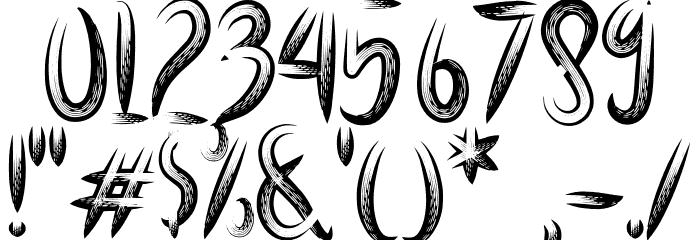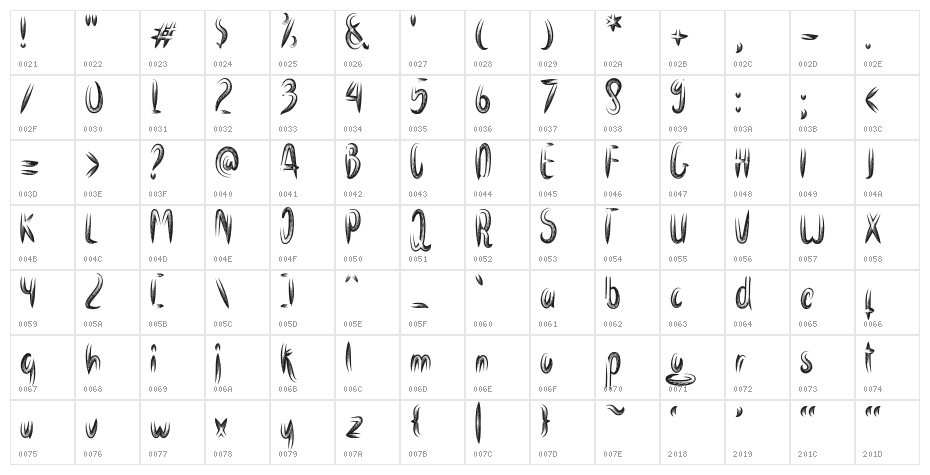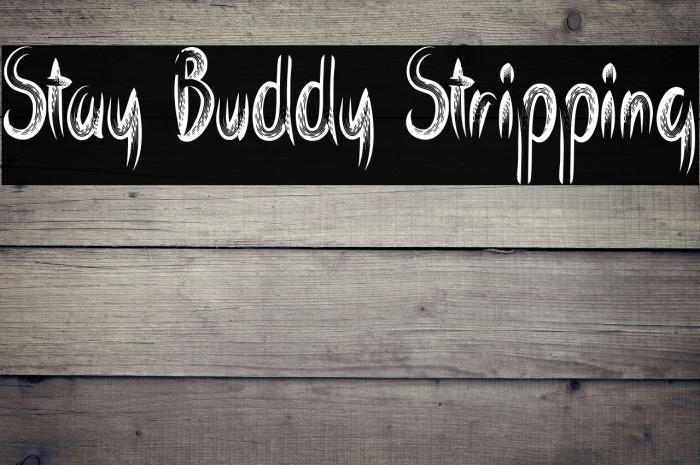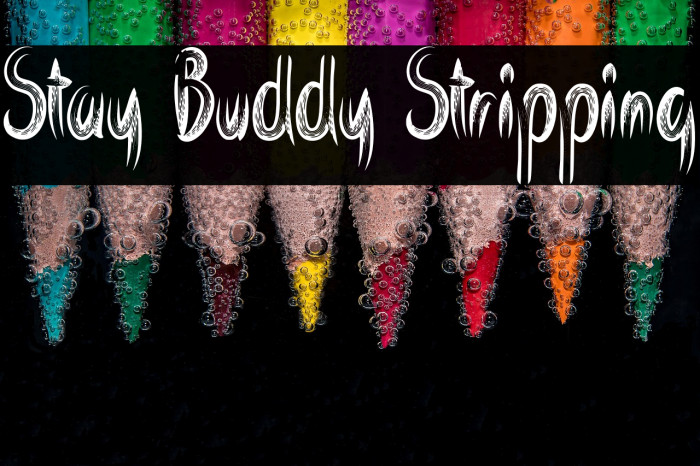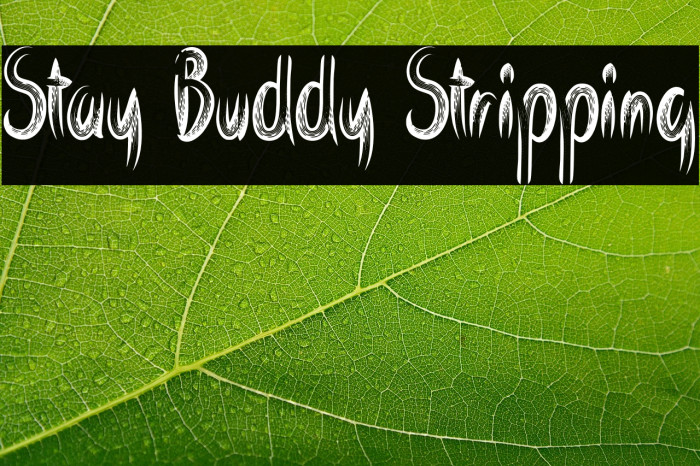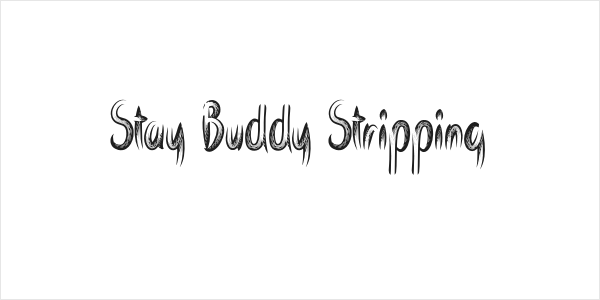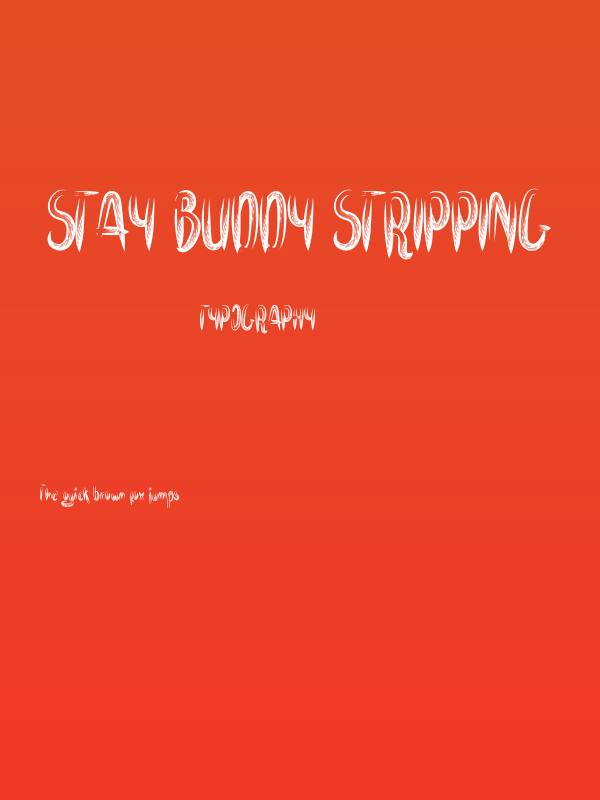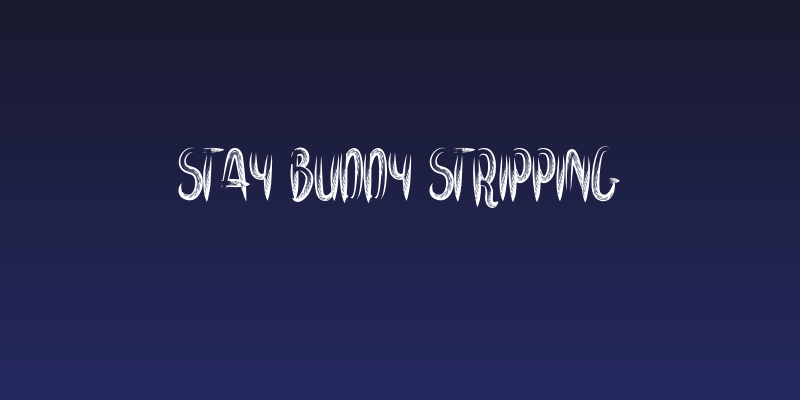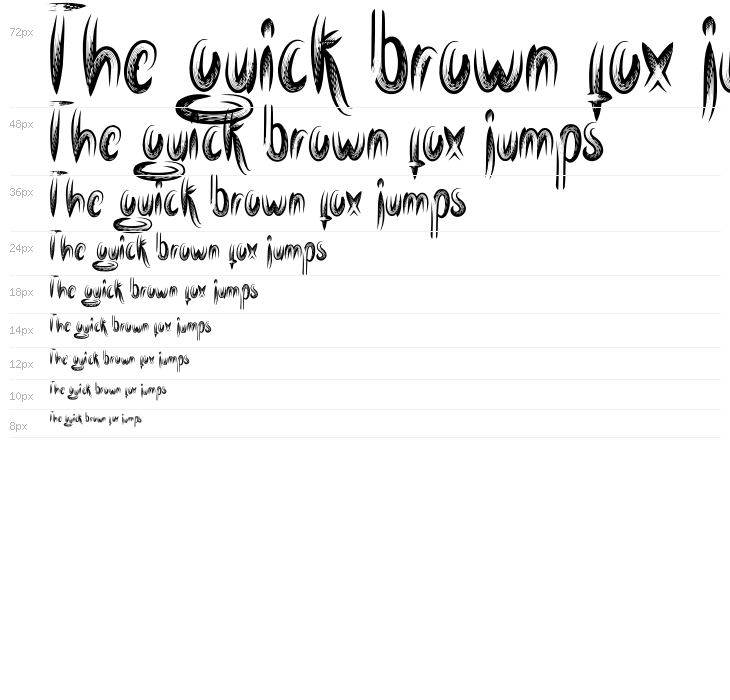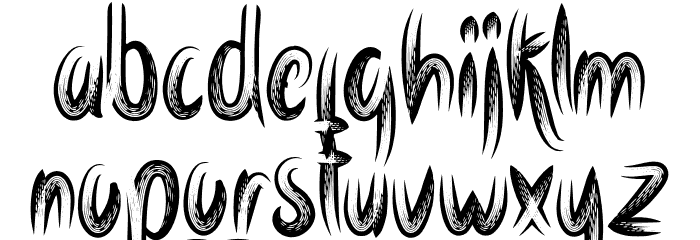
Stay Buddy Stripping Font
Stay Buddy Stripping Description
This font features a dynamic and energetic brushstroke style, characterized by its bold and expressive letterforms. Each character appears as if it has been painted with swift, confident strokes, giving it a sense of movement and vitality. The strokes vary in thickness, creating a high contrast that adds to the dramatic effect. The overall design is both artistic and playful, making it stand out in any context. The uppercase and lowercase letters maintain a consistent style, while the numbers and special characters complement the alphabet with the same brushstroke aesthetic.